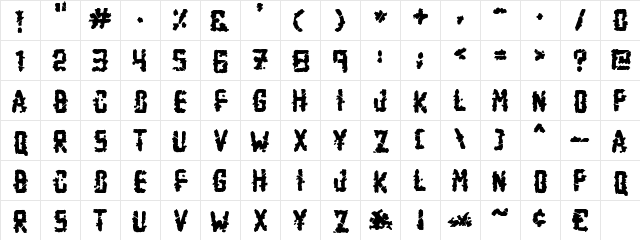
Zombie Apocalypse Regular
Design Context for Zombie Apocalypse Typeface
Zombie Apocalypse is a composed and adaptable typeface that performs quietly and consistently across a wide range of design contexts.
Pro Tip: Pair Zombie Apocalypse with a font of contrasting weight or personality to build a more expressive typographic hierarchy.